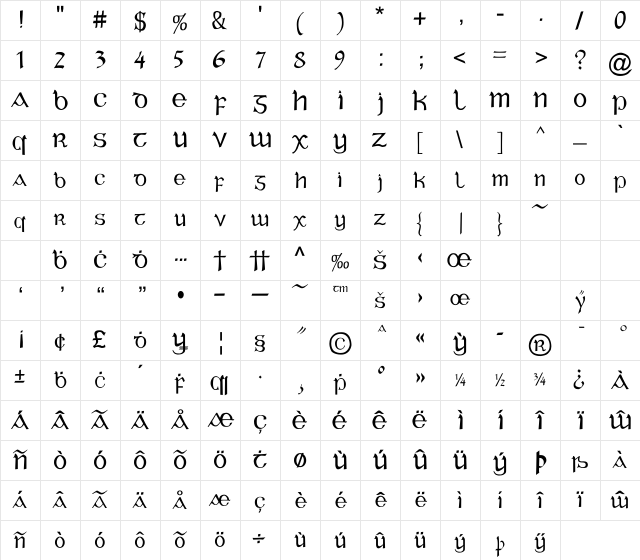
Celtic Gaelige Regular
Design Context for Celtic Gaelige
Celtic Gaelige is a composed and adaptable typeface that performs quietly and consistently across a wide range of design contexts.
Pro Tip: Use Celtic Gaelige in both headline and body roles to test its range before committing to a single application.